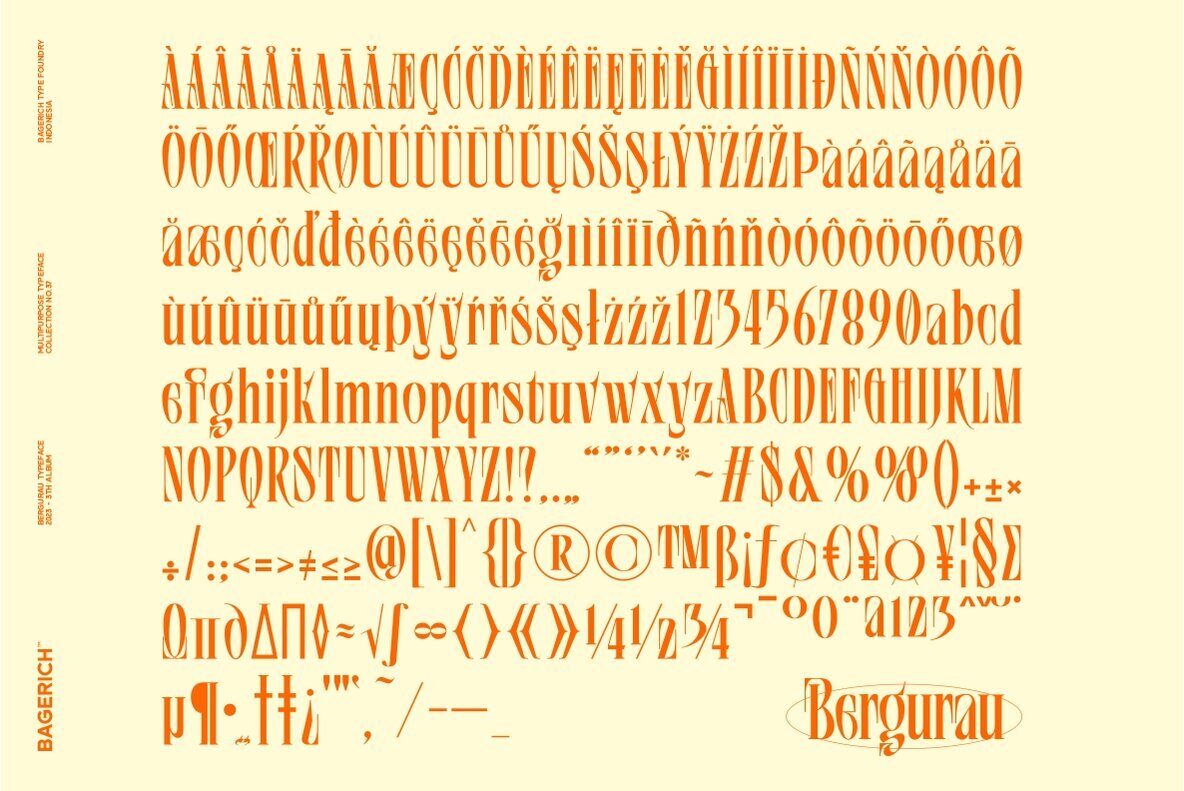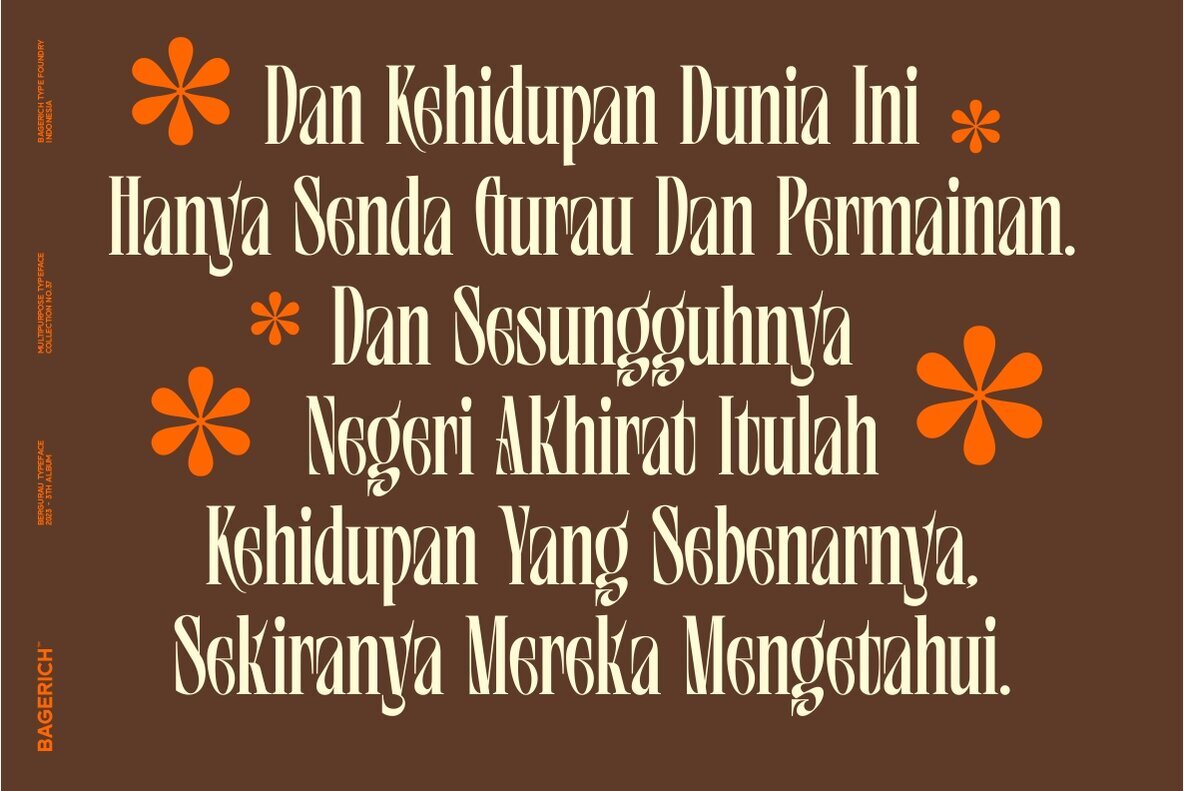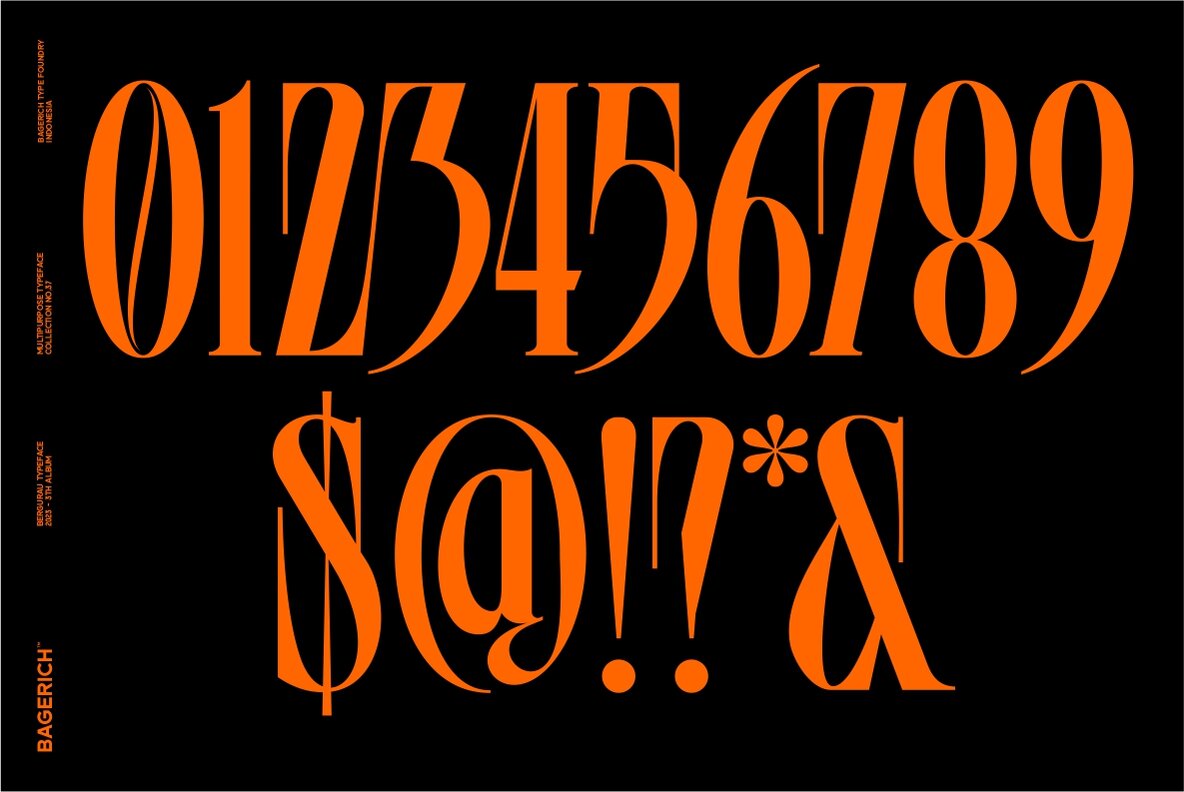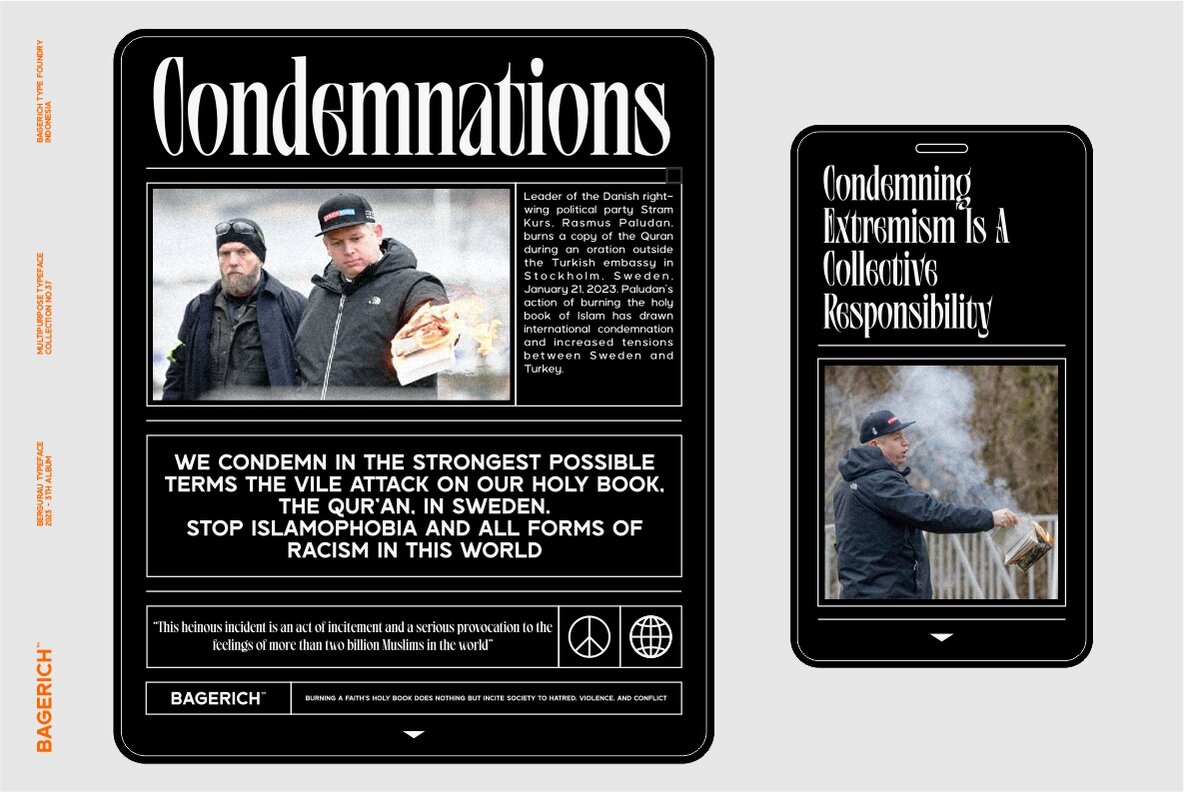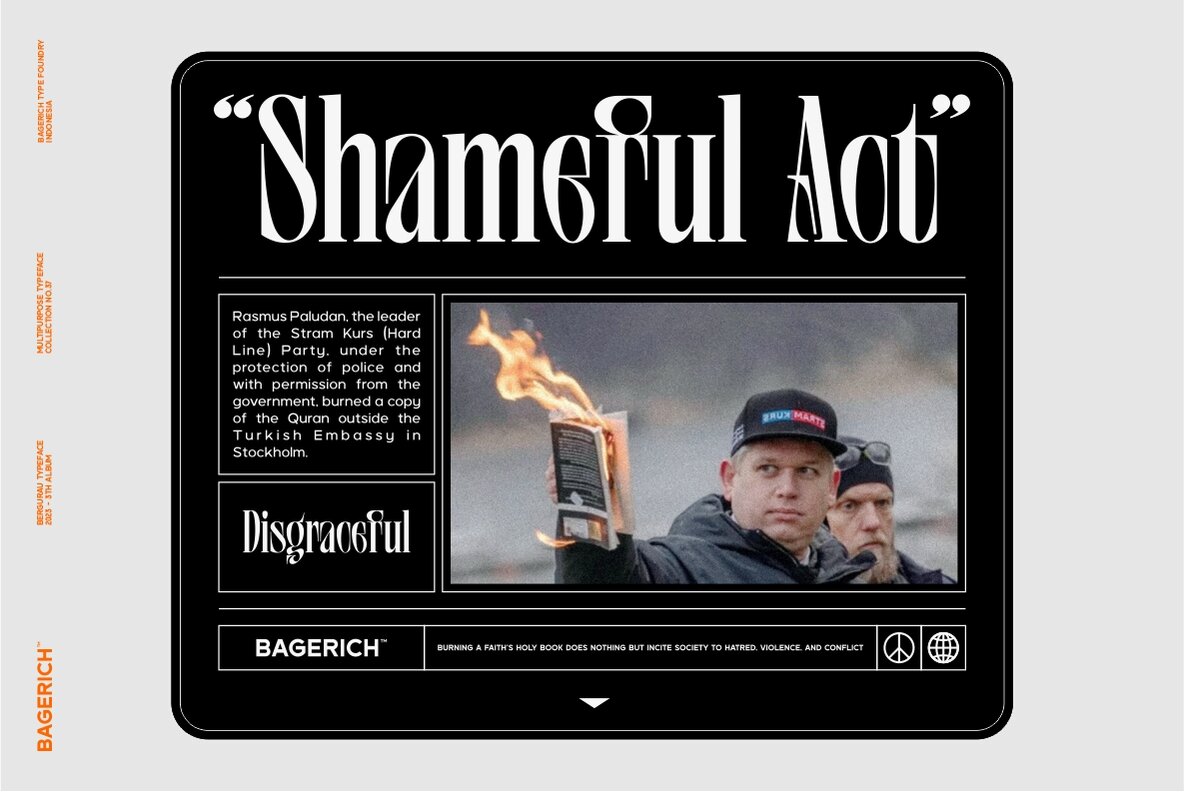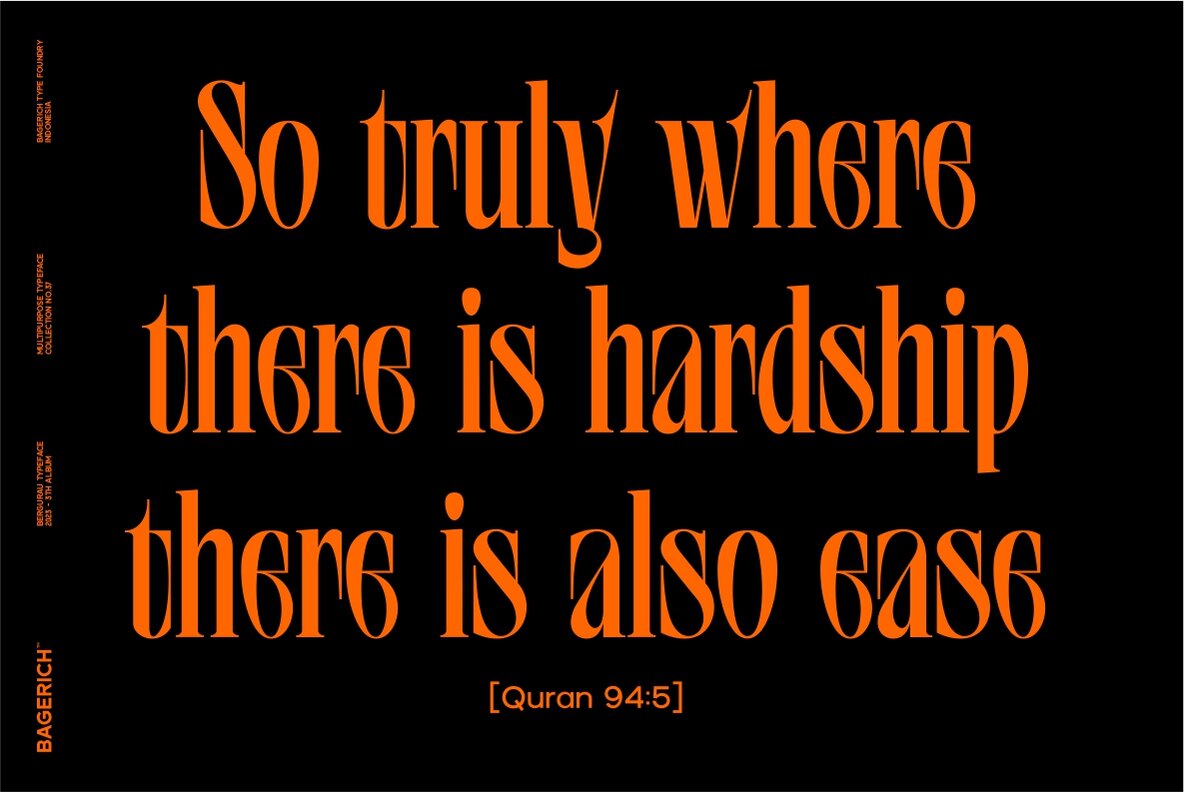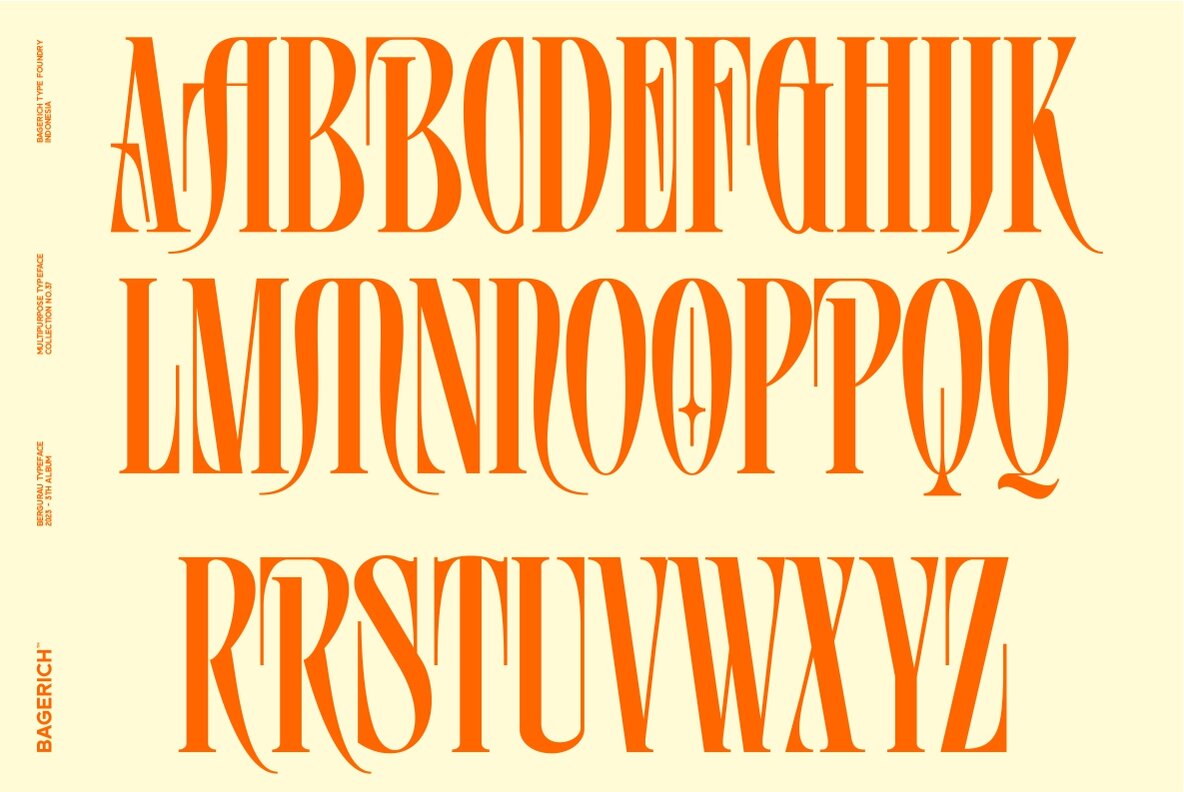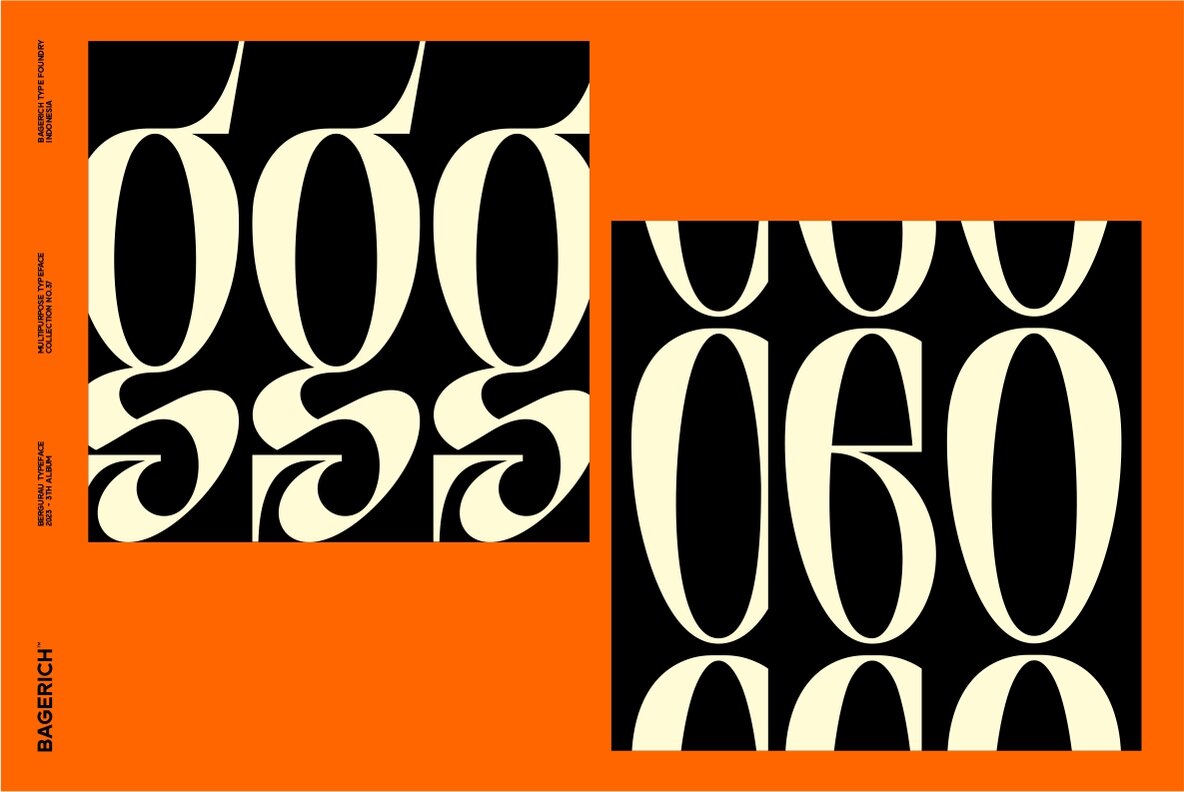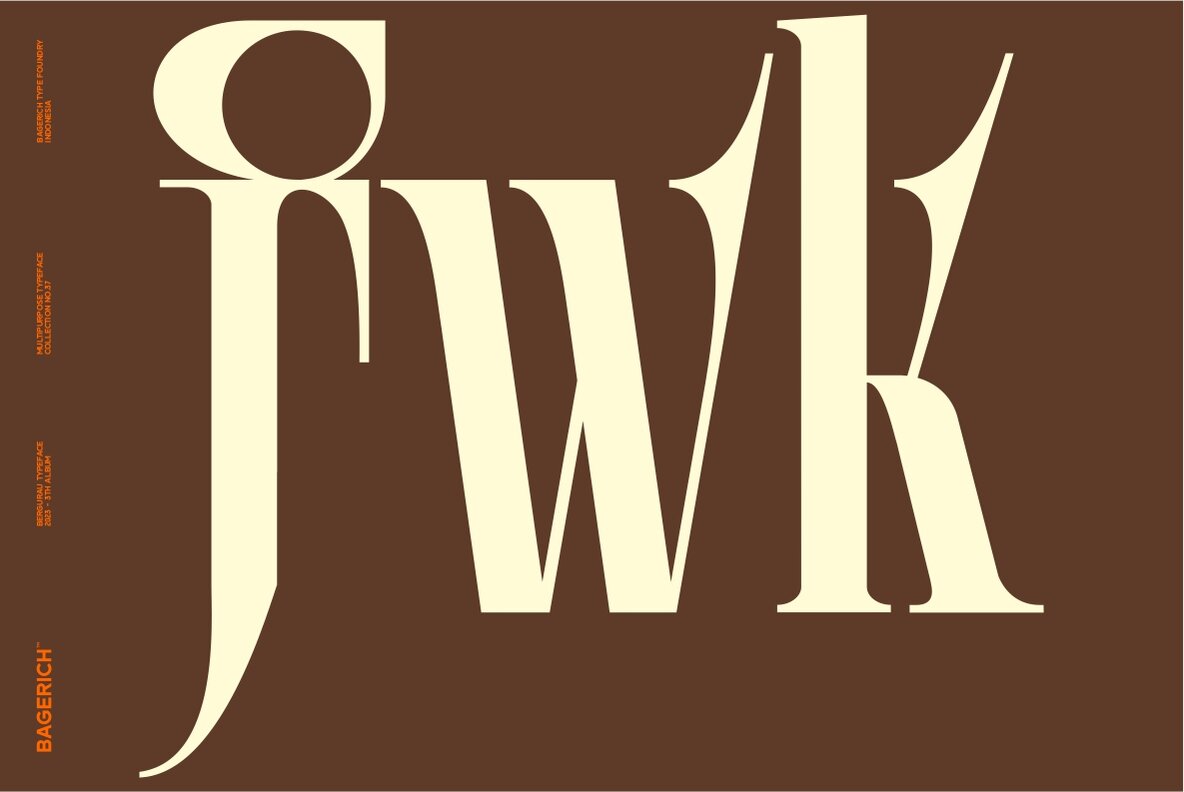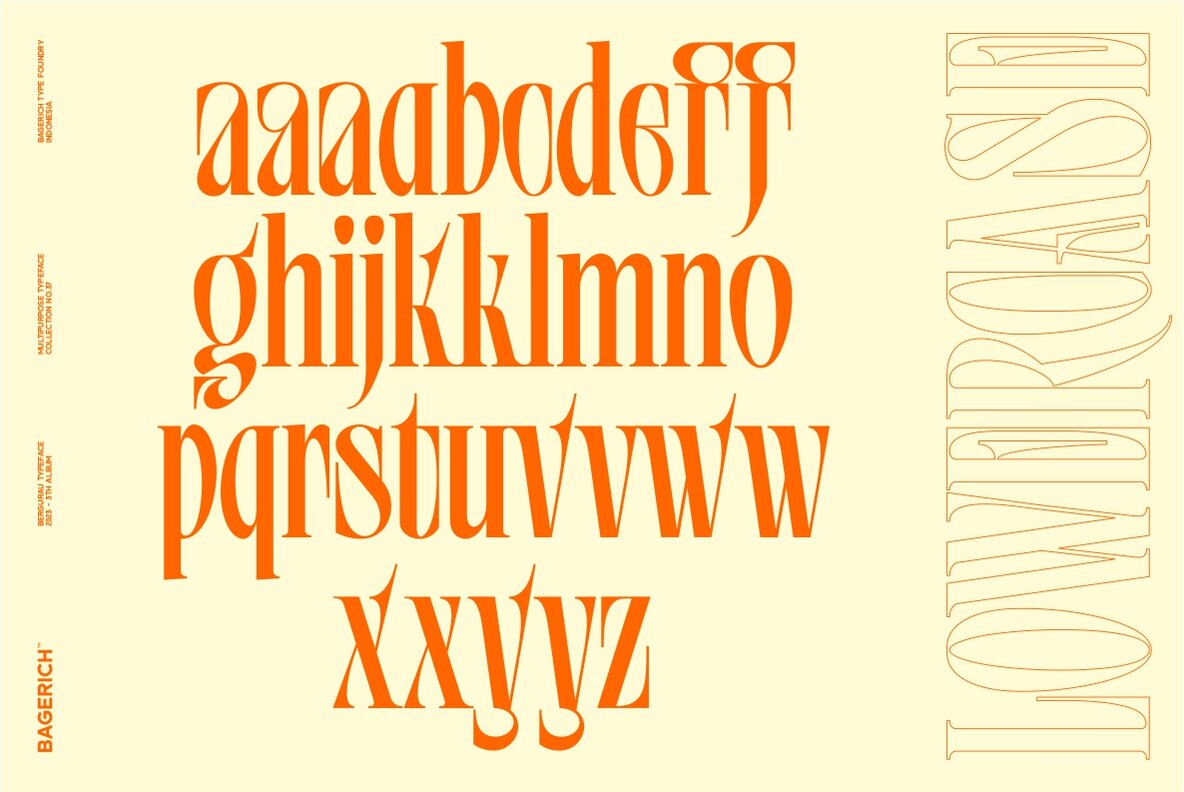
Bergurau Font
Bergurau
Bergurau stands out as a versatile serif typeface, born from an experimental juxtaposition of curved and straight serif designs. This typeface offers a sophisticated style graced with stylistic alternates and ligatures, supporting a range of multilingual languages. Embrace Bergurau for an array of creative projects. Whether crafting a unique logotype, designing a magazine with an elegant touch, or seeking sleek graphics, this typeface provides the refinement and elegance essential for sophisticated outcomes.Bergurau: A Distinctive Serif Typeface for Sophisticated Designs